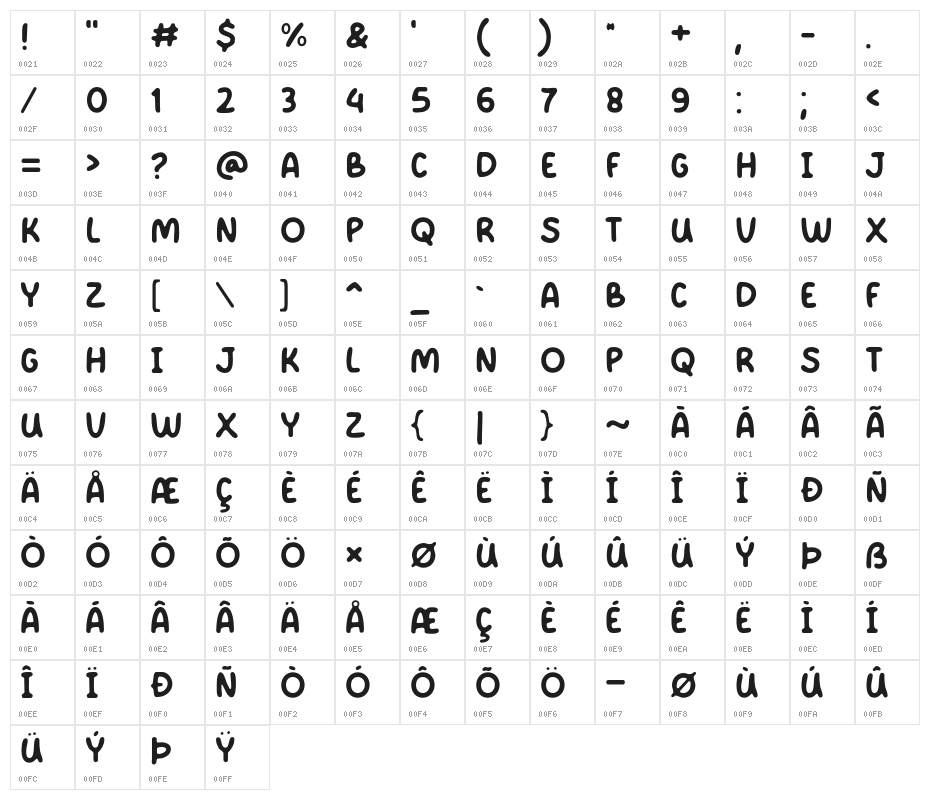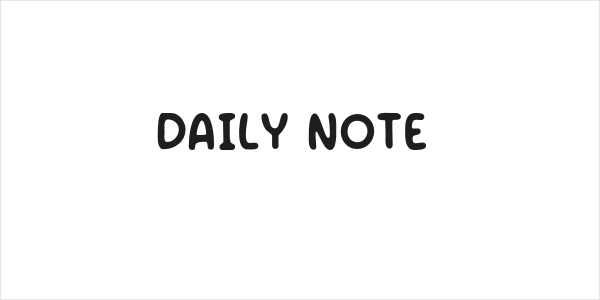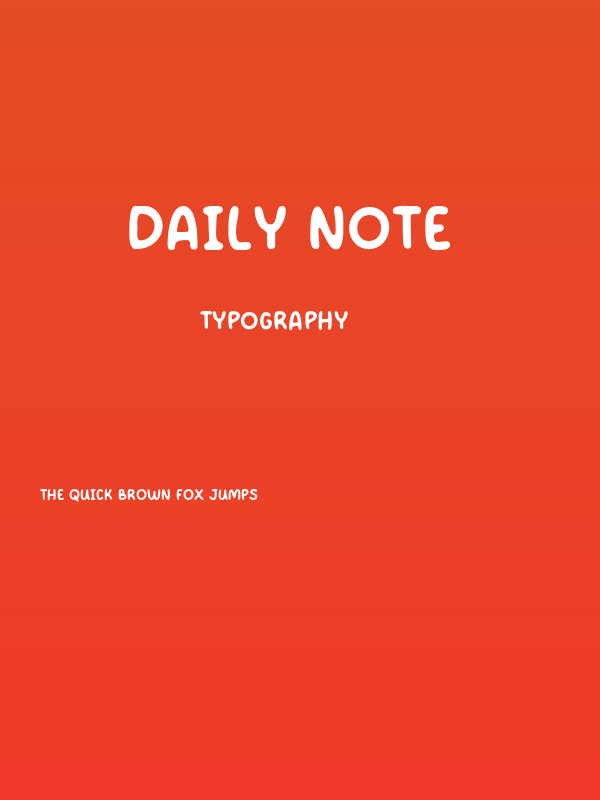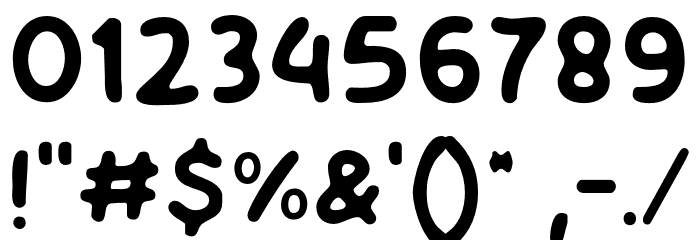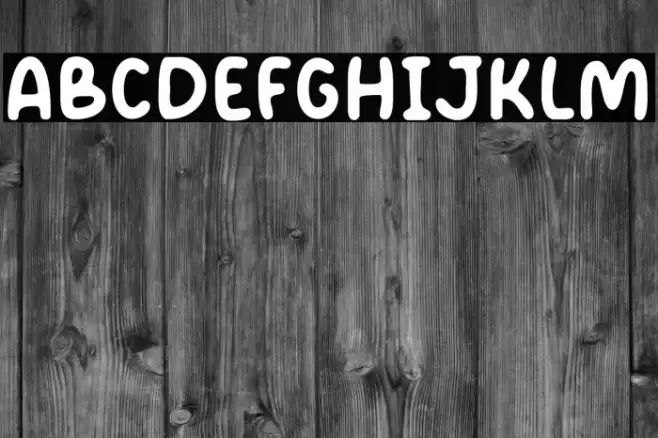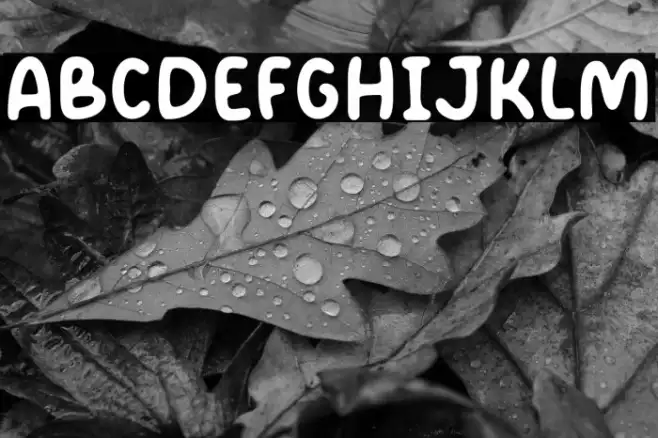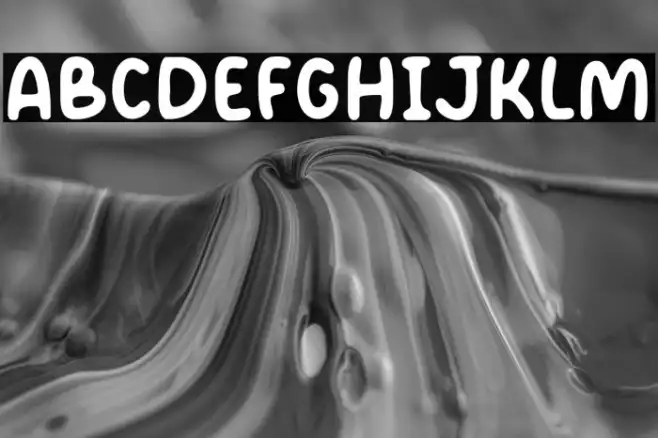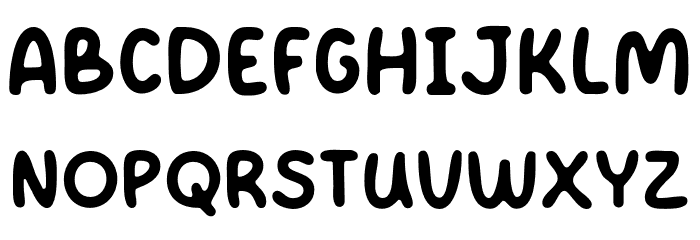
Daily Note Font
Daily Note Description
This font features a playful, rounded style with a handwritten feel, characterized by its bold and smooth curves. The letters are evenly spaced, maintaining a consistent flow that enhances readability while adding a touch of whimsy. The numbers and special characters follow the same design principles, ensuring a cohesive look across all elements. This font's friendly and approachable appearance makes it suitable for casual and creative projects, where a relaxed and informal tone is desired.
| Use Case | Headlines, Logos, Casual Text |
| Proposed Projects | Ideal for children's books, greeting cards, playful branding, and casual invitations. |